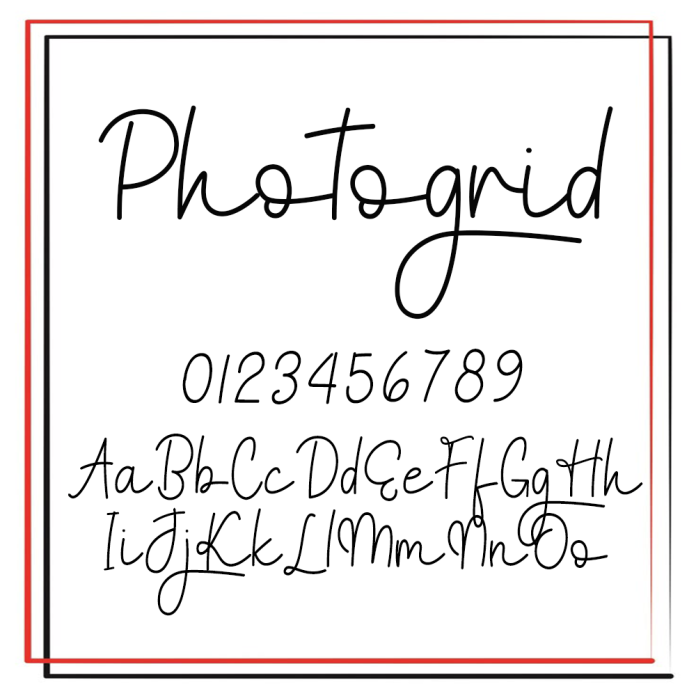
Photogrid Font is a clean and fresh sans-serif font. The sleek characters make this font ideal for eye-catching designs. You can use it for headlines, t-shirt typography, banners, product labels, and much more.